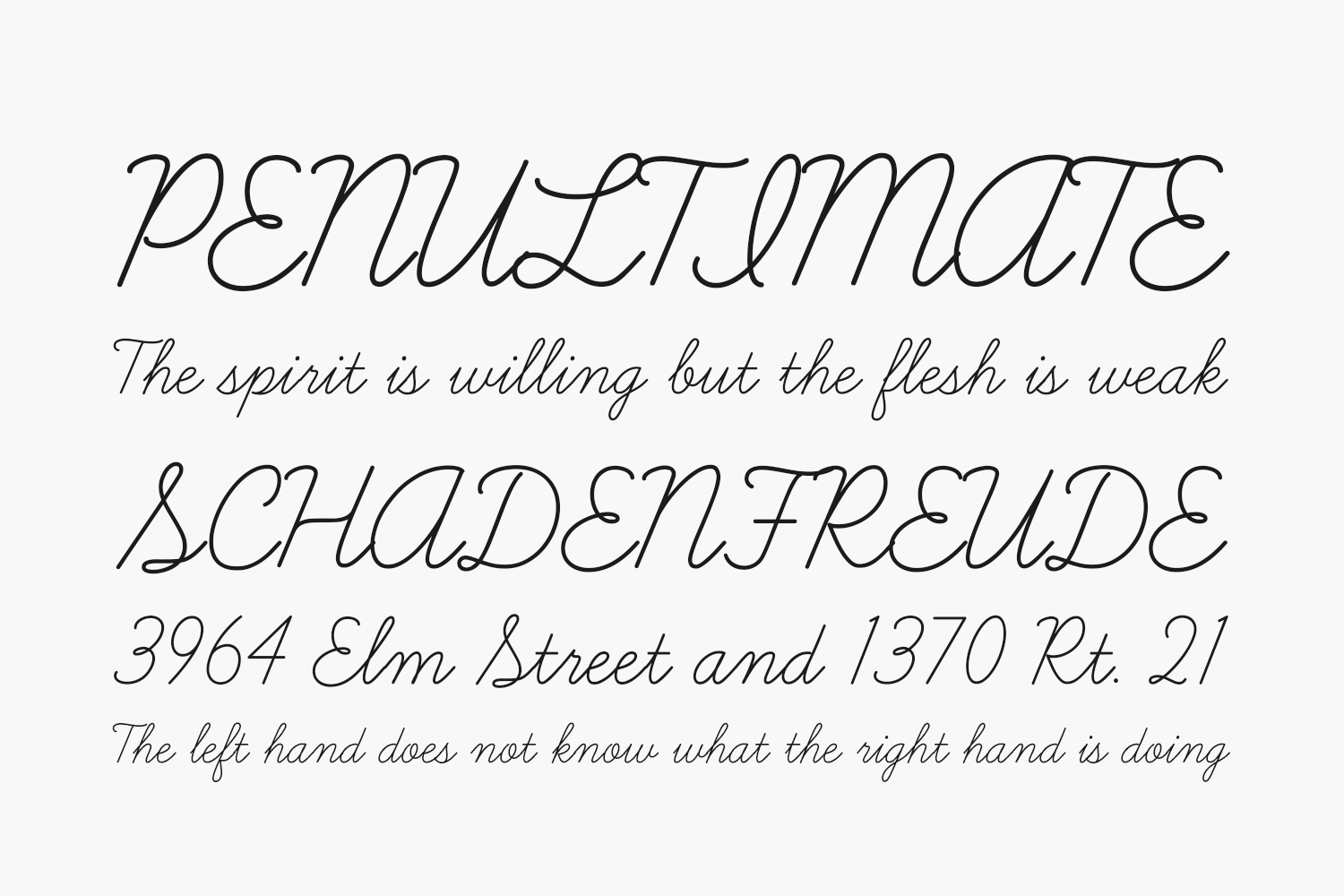
If you’ve read the headlines, you know that the majority of schools are no longer teaching cursive writing. Now more than ever the world is in need of Learning Curve!
Learning Curve Pro Free Font Family mimics traditional cursive lettering practice worksheets, but with a modern style that I developed from my handwriting.
In the latest version, you will find a lot of new features. First, the Learning Curve family finally has a bold style! Language support was increased to include Central European. Some characters were redrawn to give them a little more finesse. The dashed version was completely redrawn to eliminate the overlapping dashes. Lastly, a dingbat was created to house the guidelines and drills. Learning Curve has never looked better!
Here is what’s included: Learning Curve Regular, Learning Curve Bold, Learning Curve Dashed & Learning Curve Dings.